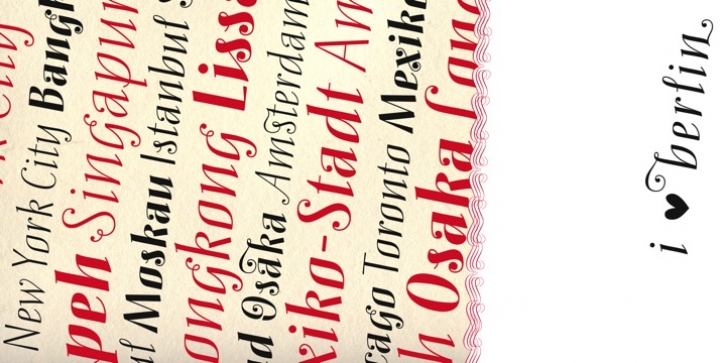
Mary Read - The Pirate Font! Sharp like swords, but also playful & elegant.
Mary Read is a modern handwritten typeface inspired by the wind and the sea. Harsh curves are combined with graceful swashes.
For typographic variety Mary Read offers a range of features and extras: initial forms, final forms, swash letters, swashes and alternates.
Just in case you have a message for the world, you could just put it on a Mary Read Flag. It is said, a subtle feeling of courage passes on to readers of Mary Read letters.